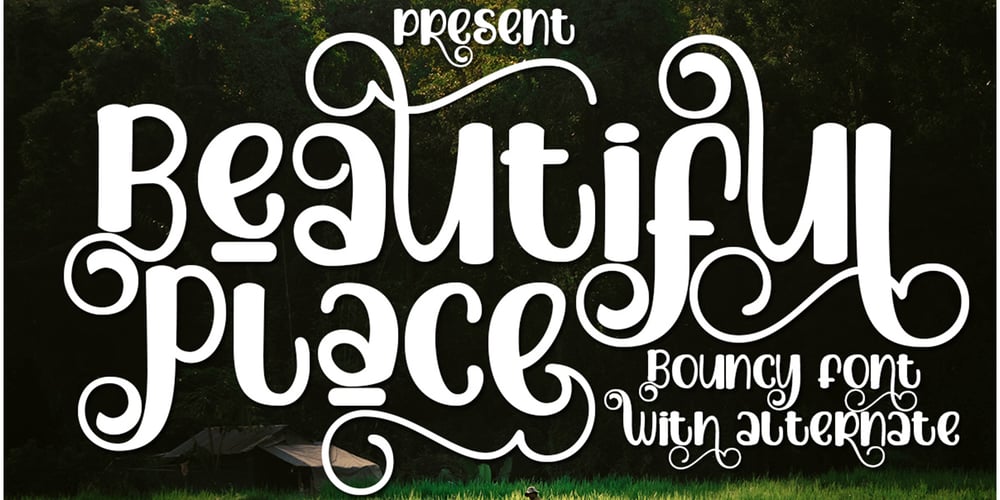
Beautiful Place Font Family was designed by Ibram Syah and published by Jehansyah. Beautiful Place contains 1 styles and family package options. This Beautiful Place Font is a font with a very cute and unique look, there are several alternates to find its signature touch, make sure you don’t miss this font design, add it to your project and see how it will change your inspiration to be more perfect.Include : Beautiful Place font Numeric Punctuation Alternate Latin and Thank you Very Much